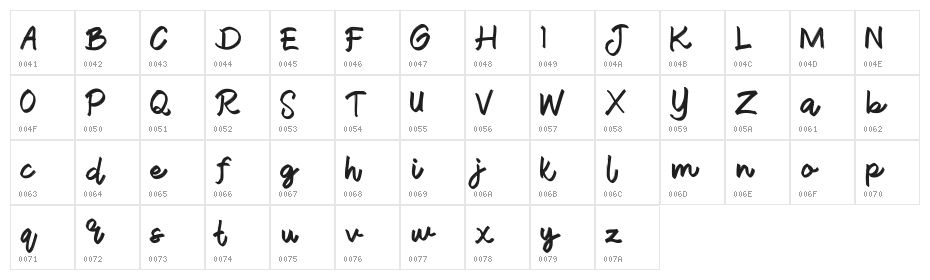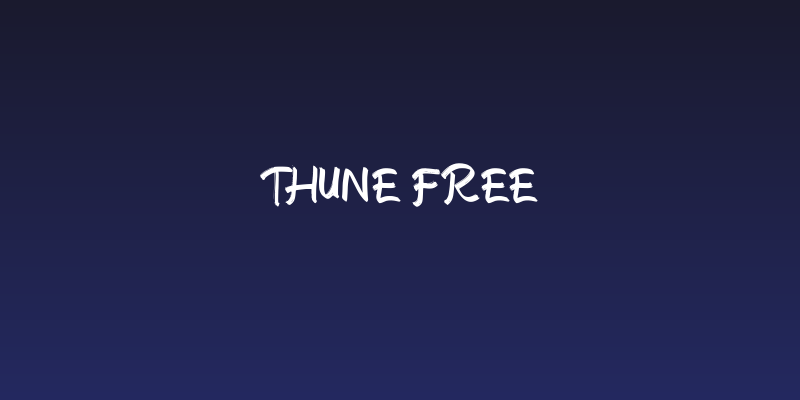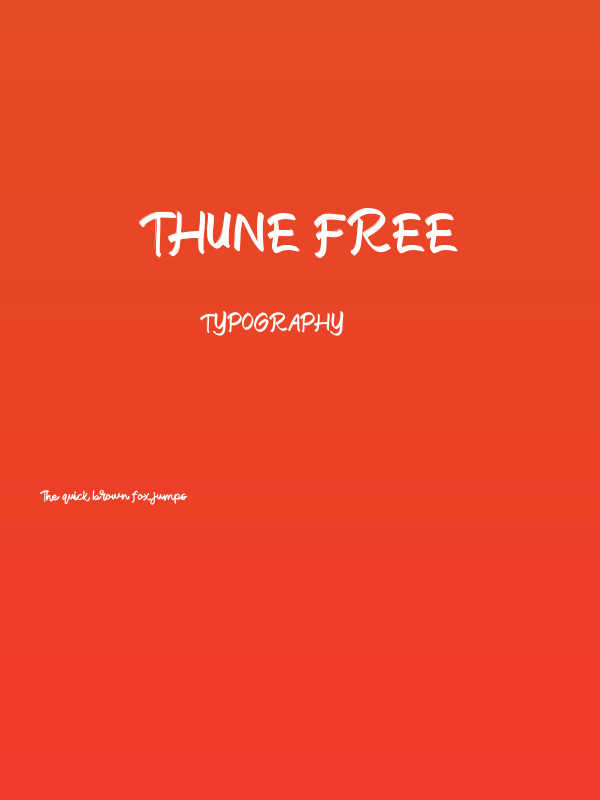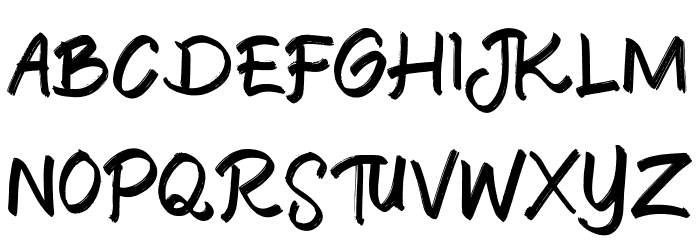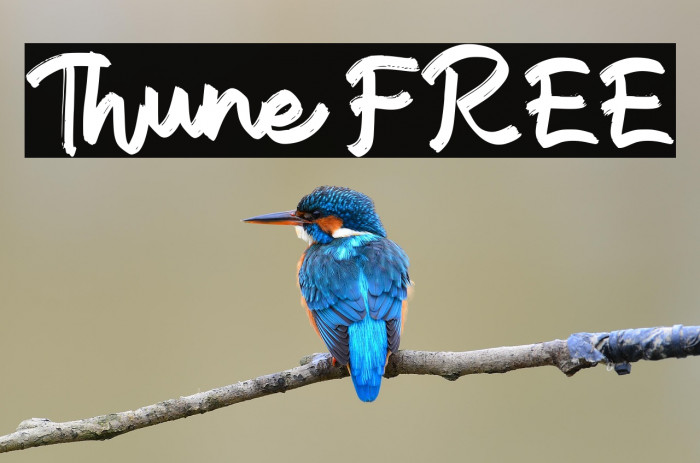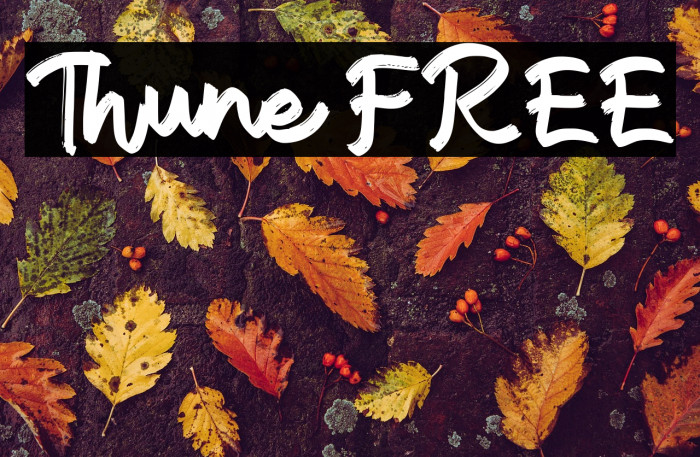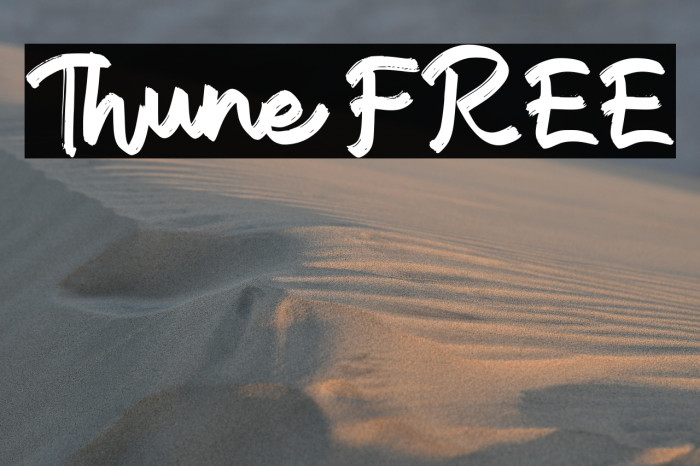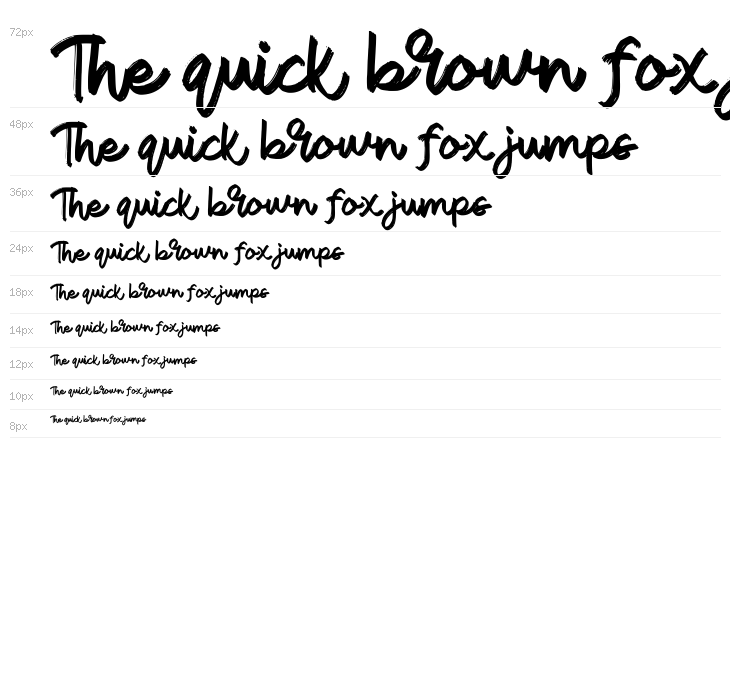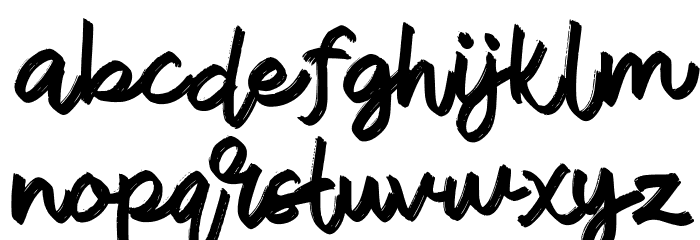
Thune FREE Font
Thune FREE Description
This font features a bold, expressive script style with a hand-drawn appearance. The strokes are thick and dynamic, giving it a lively and energetic feel. The uppercase letters are slightly more structured, while the lowercase letters exhibit a more fluid and cursive nature. The characters have a playful bounce, with varying heights and angles that add to the font's charm. The overall look is casual yet impactful, making it suitable for projects that require a personal touch. The font maintains a consistent weight throughout, ensuring readability despite its artistic flair.